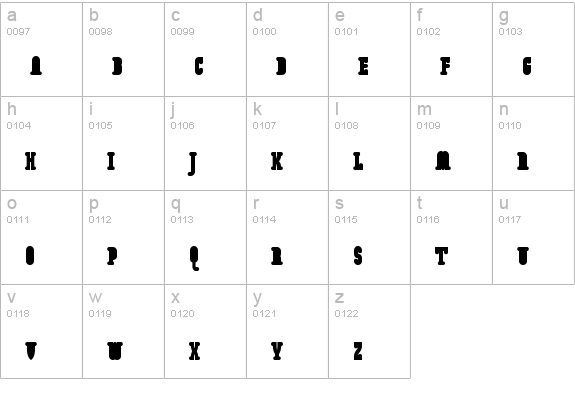
ModulaRoundSerifUltraSmCap Font Details
ModulaRoundSerifUltraSmCap font is a sophisticated and elegant typeface that combines classic serif elements with a modern rounded style. Its ultra small capitals add a unique touch to any design, making it perfect for projects that require a refined and polished look. This font is not only visually appealing but also versatile, suitable for a wide range of applications such as branding, editorial design, packaging, and more. Its sleek and streamlined appearance is sure to make any text stand out. What's even better is that ModulaRoundSerifUltraSmCap font is available for free download at FontsMarket.com. Get your hands on this exquisite typeface today and elevate your designs with its timeless charm and sophistication.